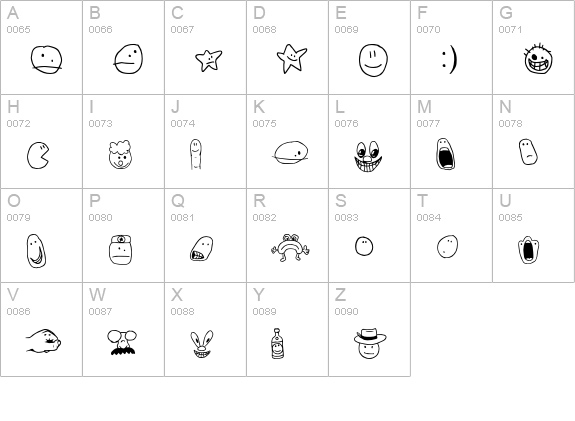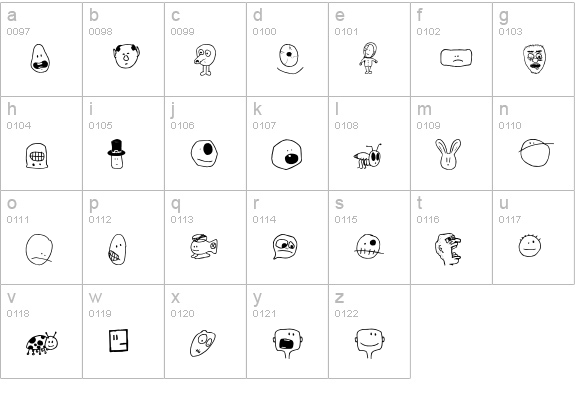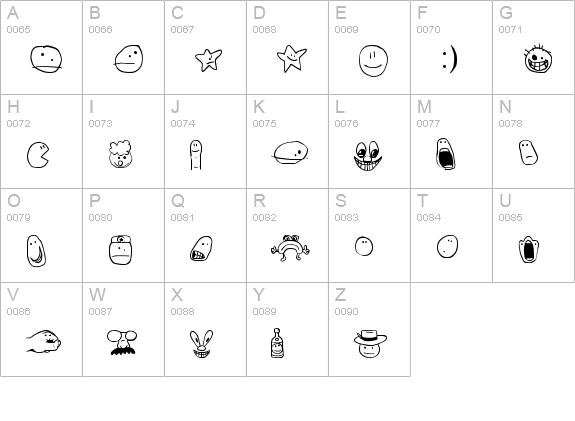
TombatsSmilies Font Details
TombatsSmilies font is a delightful and whimsical typeface that will add a touch of fun and playfulness to any design project. This font is perfect for those looking to express their emotions and convey messages with a unique and expressive twist. Featuring a wide range of smiley faces and emoticons, TombatsSmilies font offers an extensive collection of characters that will bring a smile to anyone's face. From happy and cheerful expressions to mischievous and silly ones, this font has it all. Not only does TombatsSmilies font bring a sense of joy to your designs, but it also offers the convenience of being free. That's right, this font is freely available to download at FontsMarket.com. Now you can add a touch of whimsy to your designs without breaking the bank. Whether you're creating eye-catching posters, designing playful invitations, or adding a touch of personality to your social media graphics, TombatsSmilies font is the perfect choice. With its wide range of emoticons, this font allows you to express yourself in a unique and creative way. So why wait? Download TombatsSmilies font today and let your designs come alive with the power of smiles. Spread positivity and happiness with this free font that is sure to bring a smile to everyone's face.